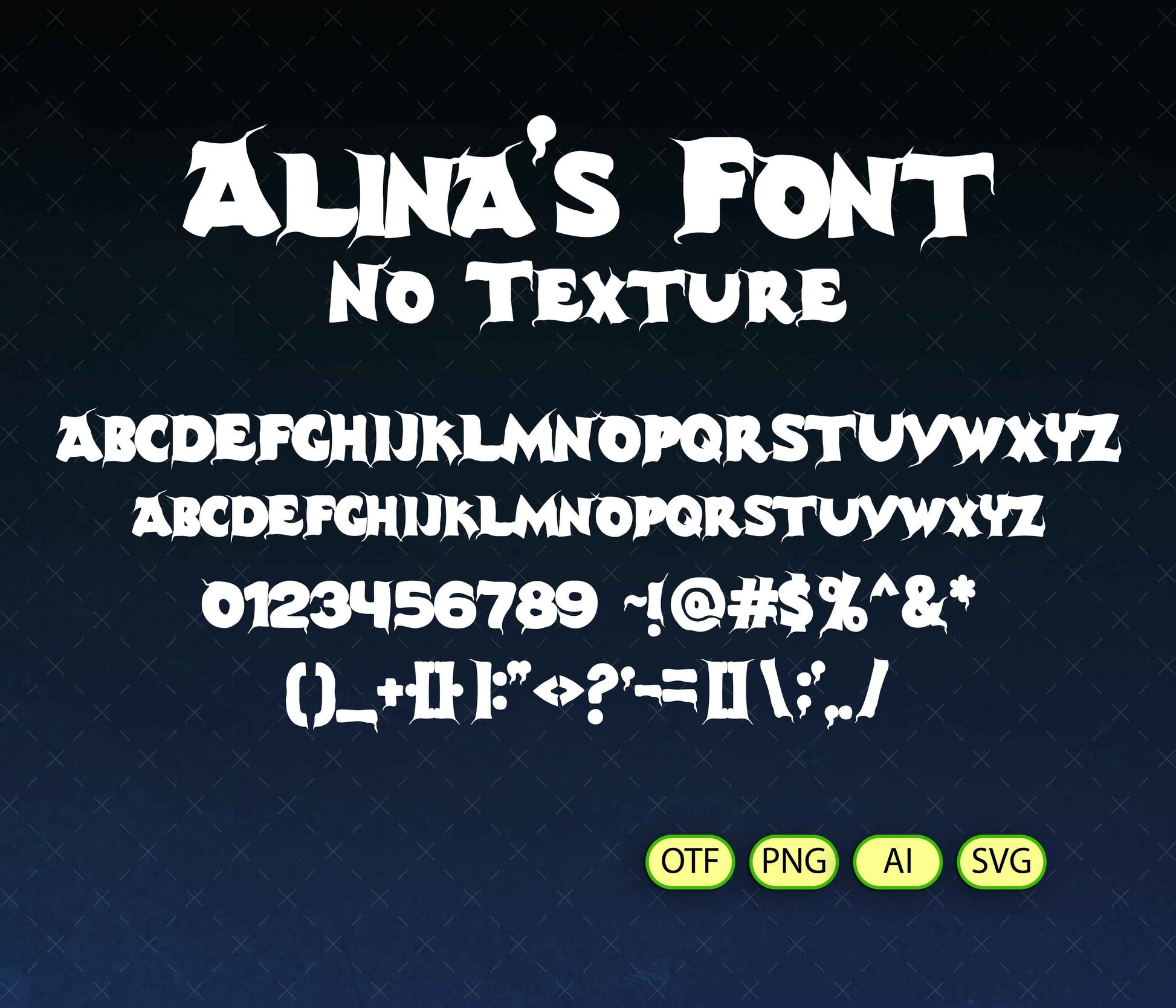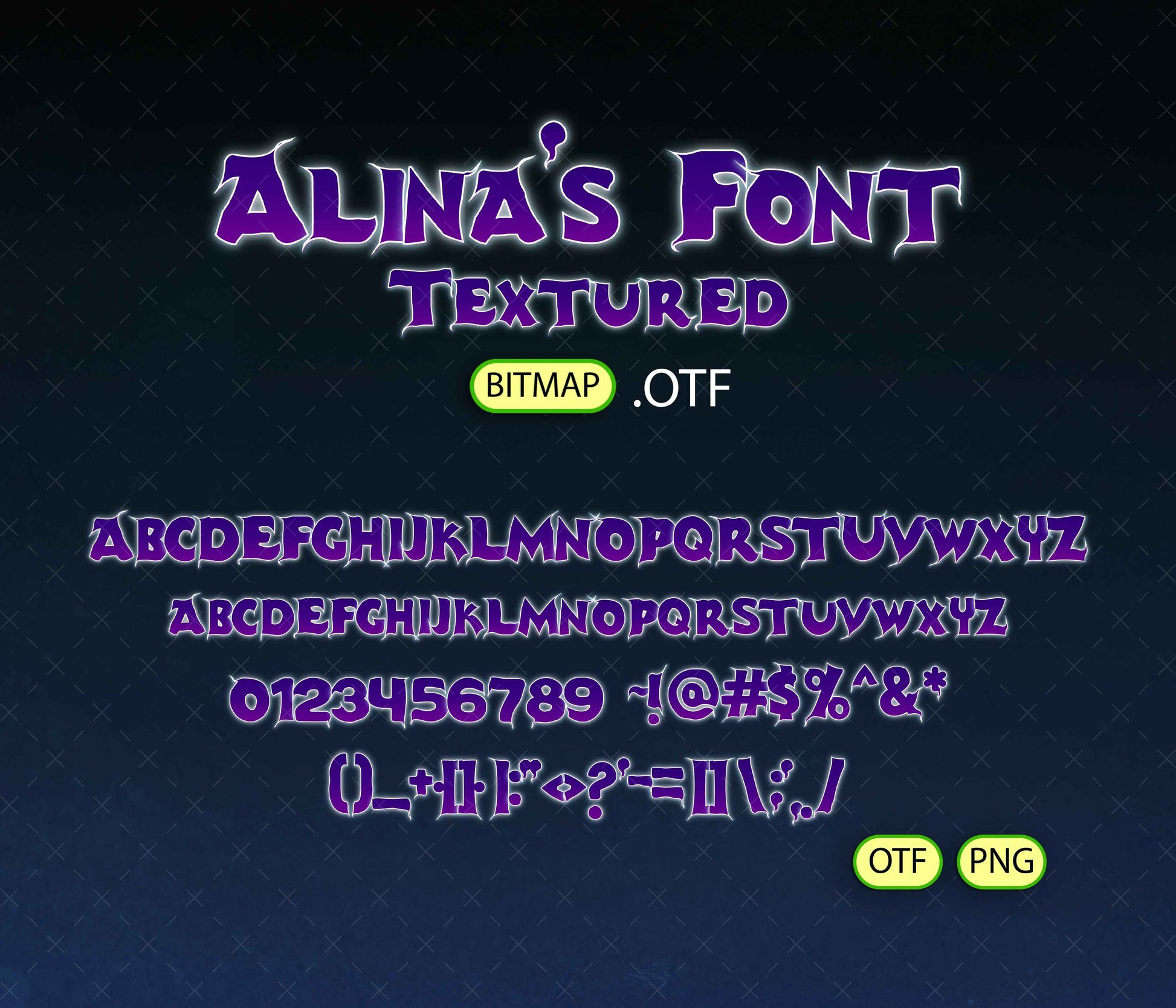
Friendly Spooky Specter Font Textured
Embark on a journey into the endearing world of a friendly ghost with our specially designed Friendly Specter font. This font captures the essence of a beloved character known for his gentle and amiable nature in a world of spectral adventures. Each character in this font is crafted to reflect a whimsical, airy, and friendly aura, making it perfect for projects that aim to evoke warmth and charm.
What Font is Friendly Specter Font?
Imagine a typeface that encapsulates the light-hearted and approachable spirit of a benevolent ghost. Our Friendly Specter font is designed to mirror playful and ethereal qualities, with a focus on soft, rounded forms and a ghostly yet friendly appearance. It includes an extensive character set, featuring alphabets, numbers, and special symbols, offering a comprehensive solution for branding, storytelling, and design projects that require a touch of gentle ghostliness.
What Can You Do With Friendly Specter Font?
- Textured and Non-Textured Variants: Each font is available in both a ghostly, playful style and a clean, non-textured version for diverse design needs.
- Comprehensive Character Set: Offers a wide range of characters for complete design versatility.